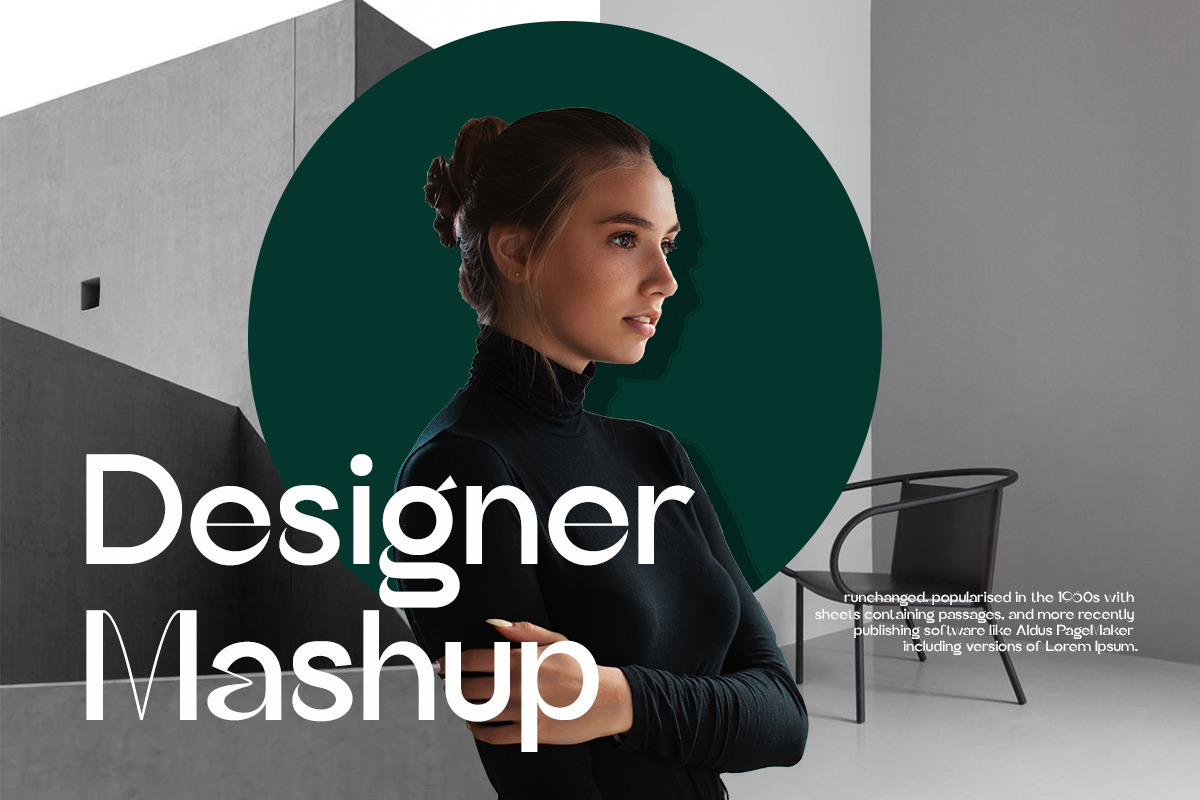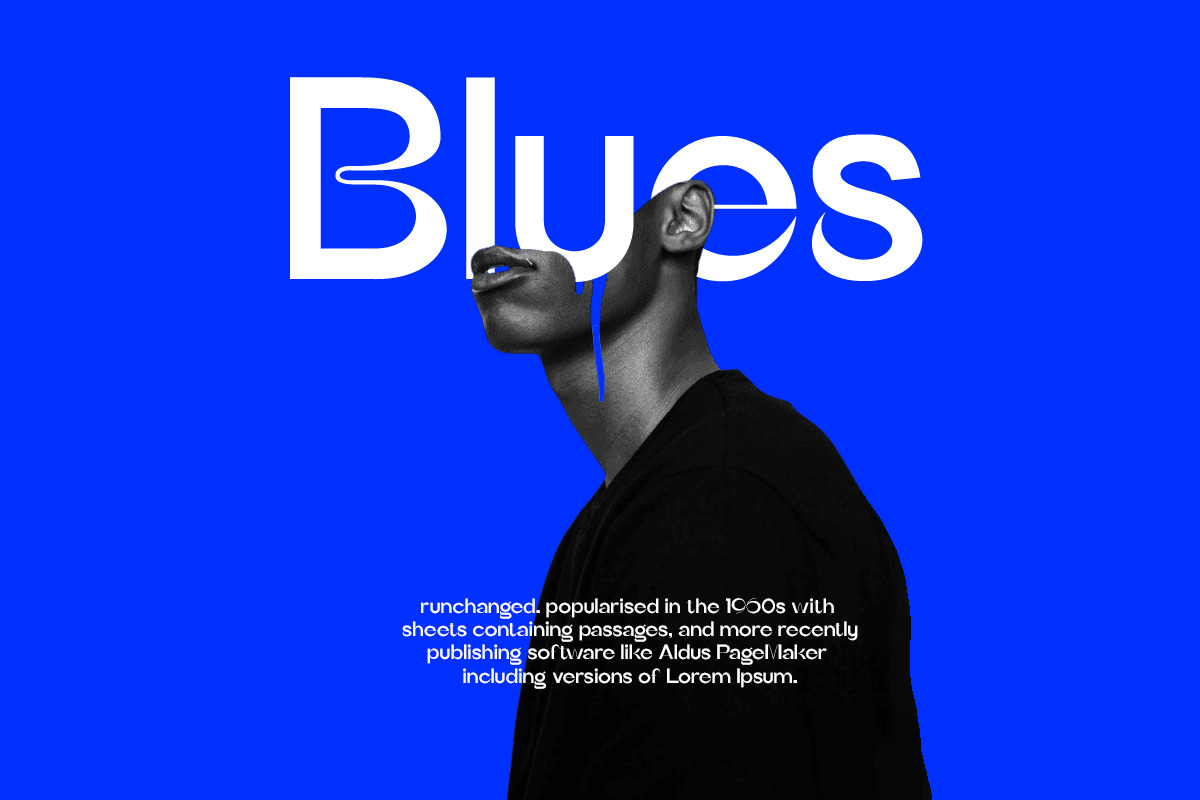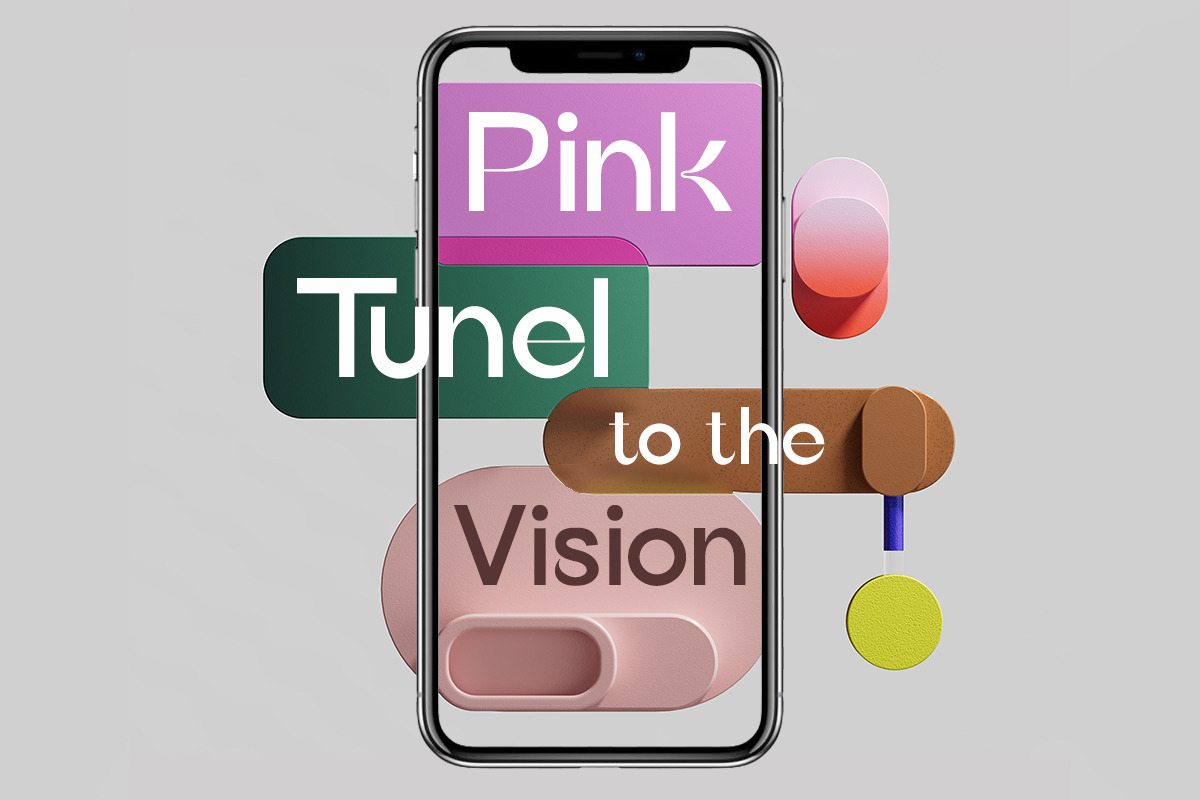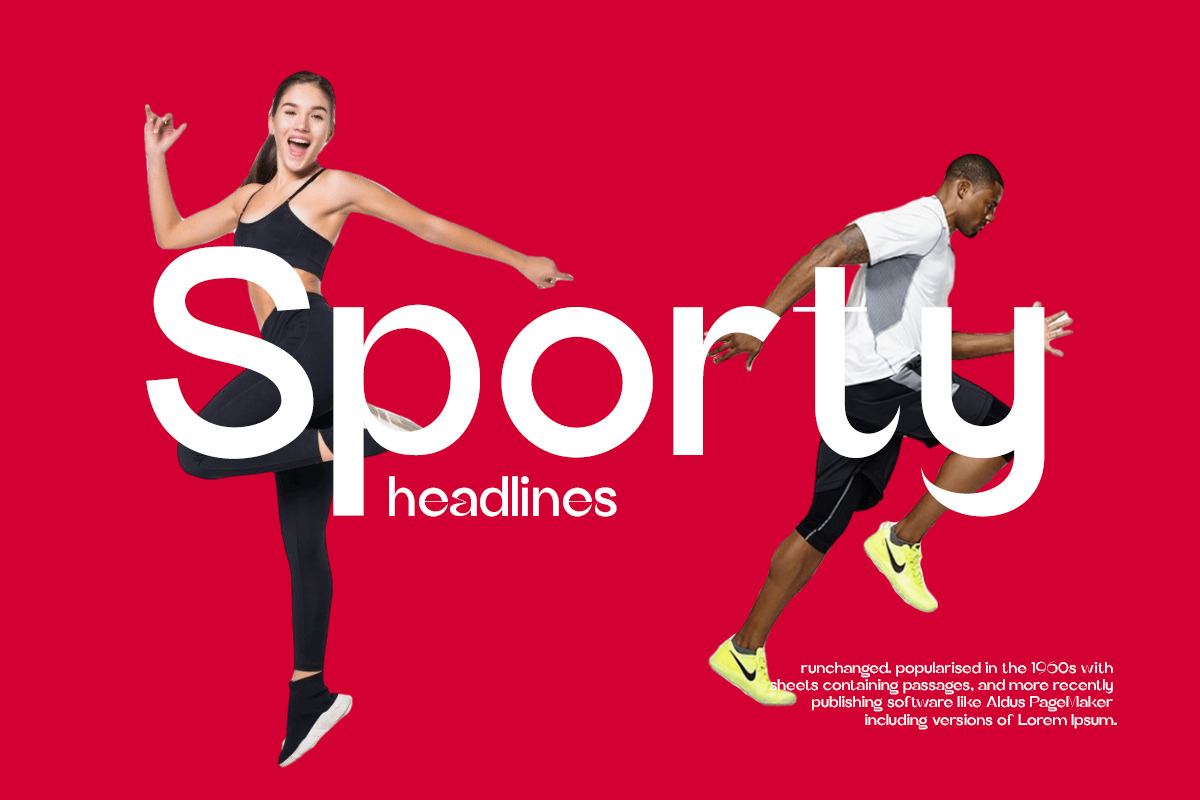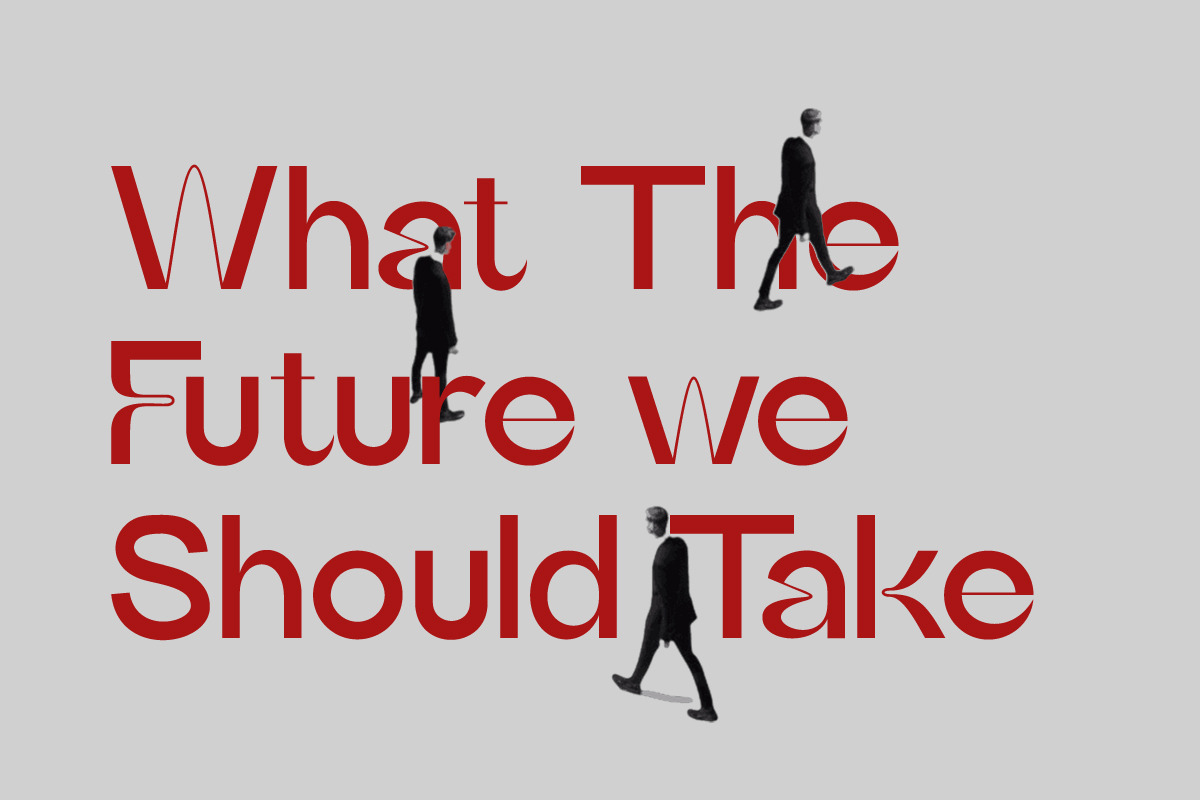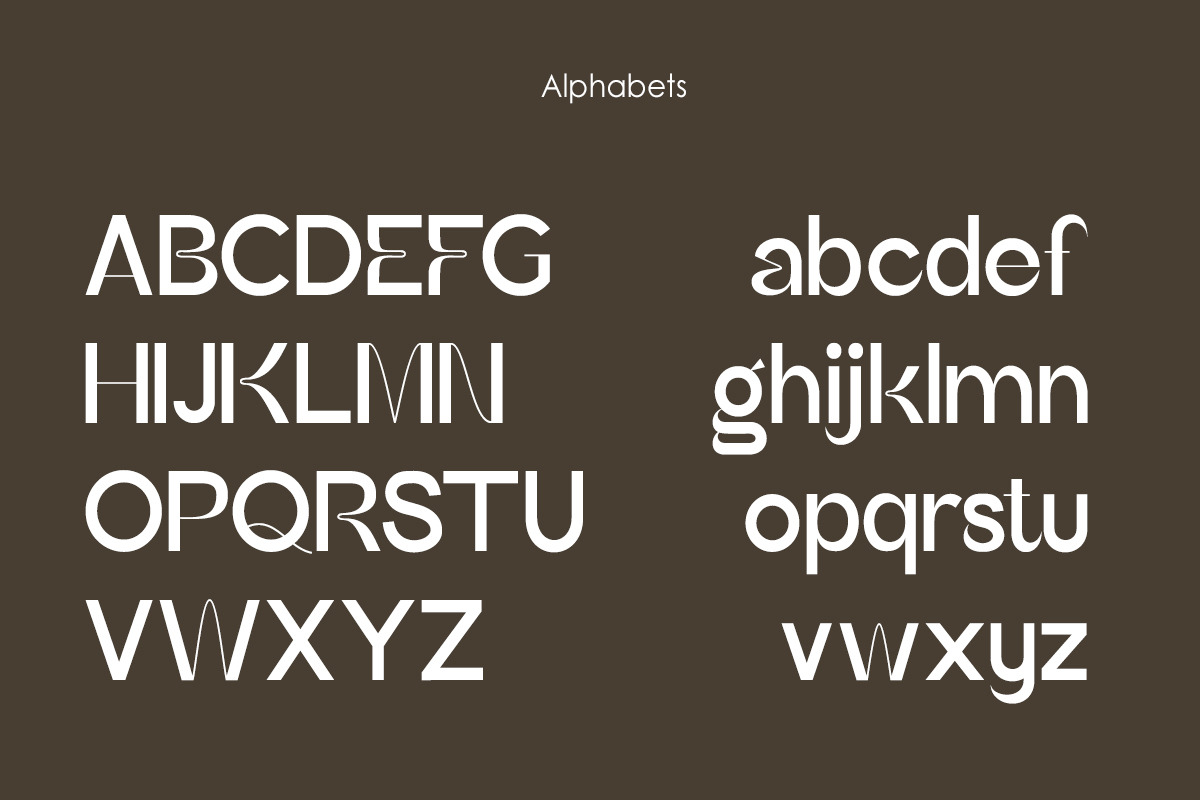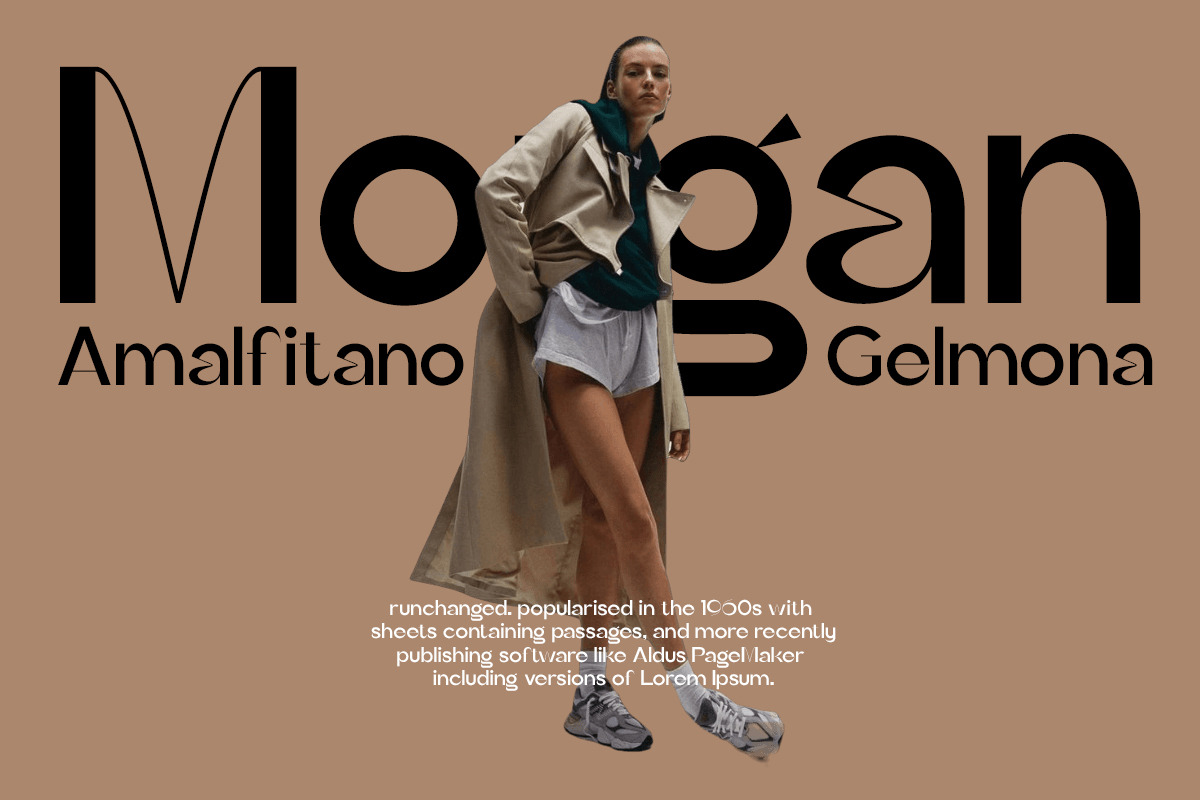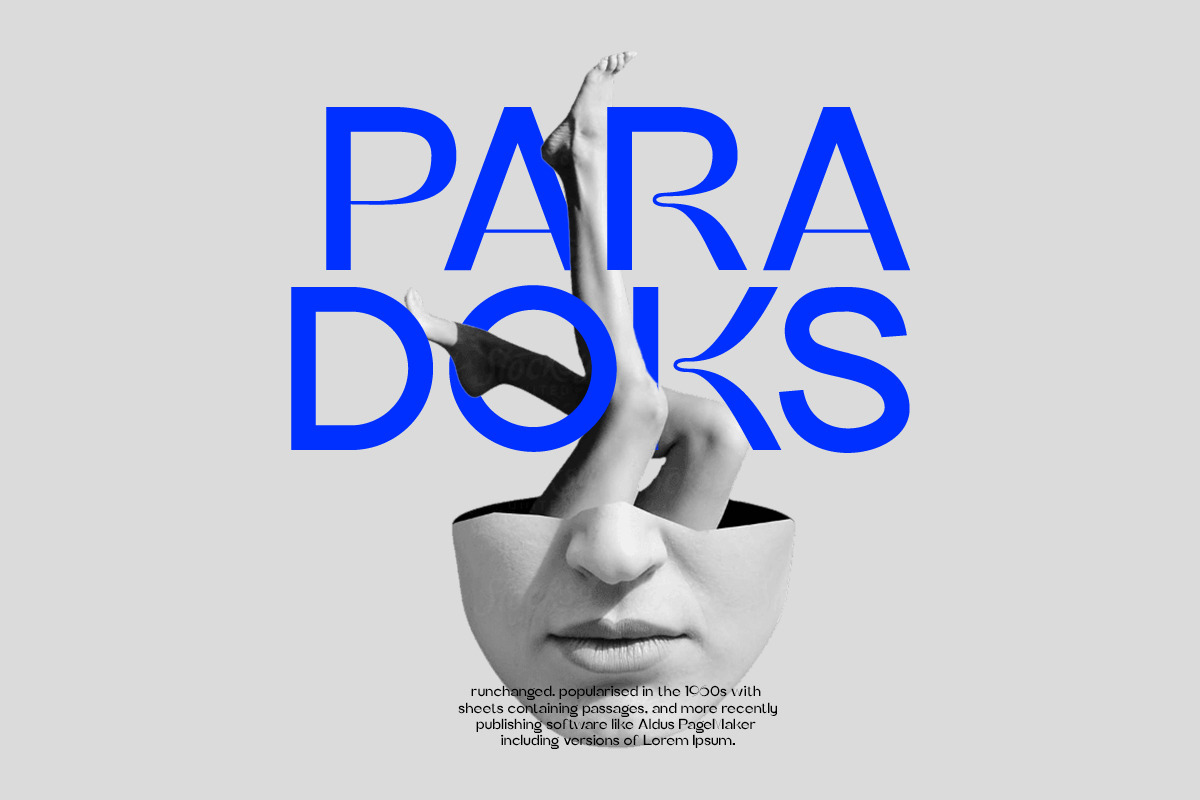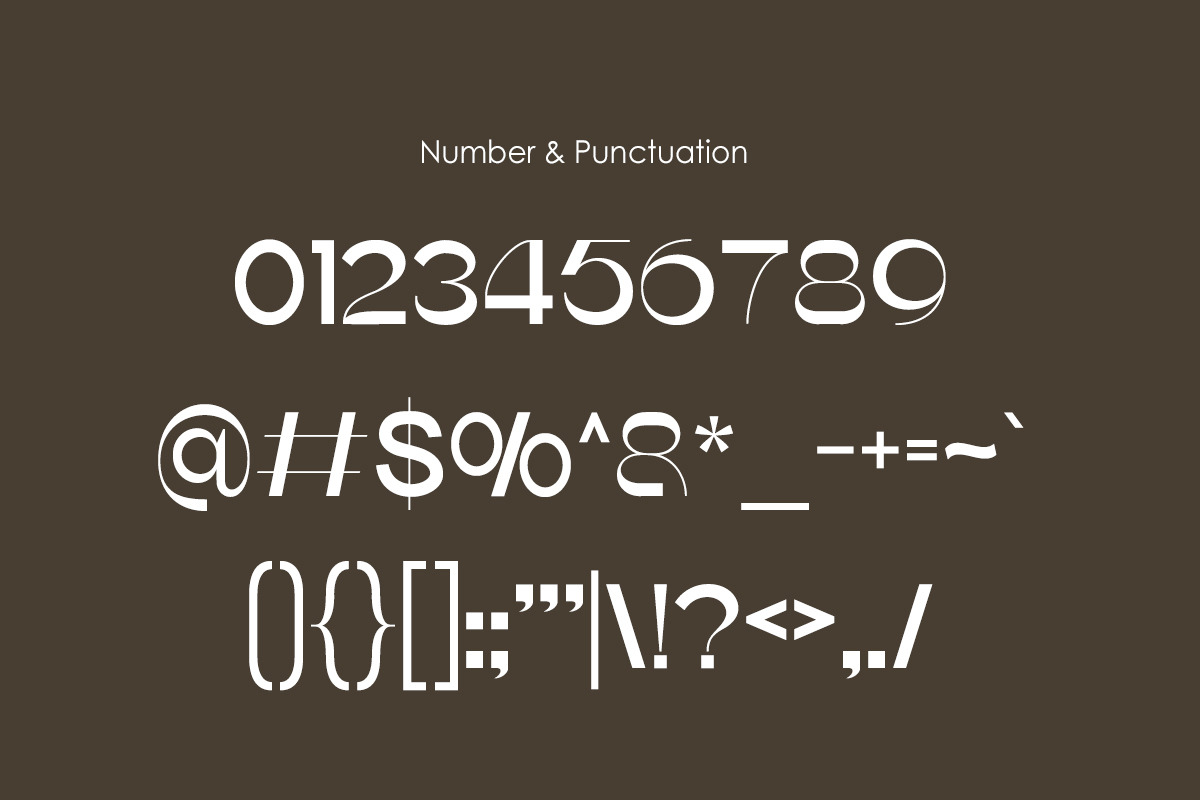
Andalusia Modern Sans Serif
Andalusia Modern Sans Serif fonts include uppercase letters, lowercase letters, numerals, a large range of punctuation. Sans Serif font with modern stylish style. Created for poster, web design, branding, illustrations, badges, and some other works.